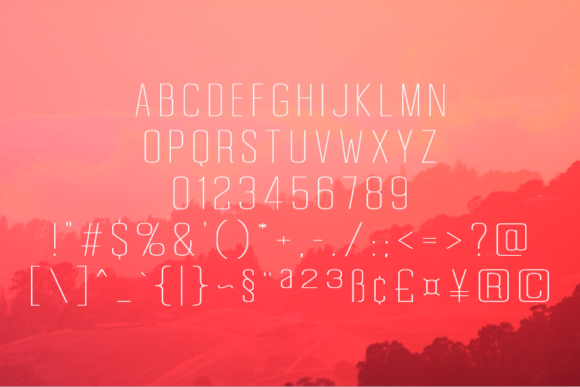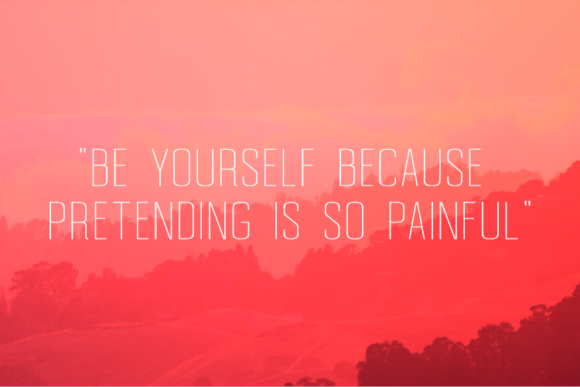
Discover the Elegance of Beatrieza Font: A Delicate Sans Serif for Every Design Need
In the vast and ever-evolving world of typography, finding the perfect font that matches your design vision can be a daunting task. However, if you’re looking for a typeface that exudes elegance, simplicity, and versatility, look no further than the Beatrieza Font. This delicate and thin lettered sans serif font has been making waves in the design community for its neat style and adaptability across a wide range of projects. Whether you’re a seasoned designer or a crafting enthusiast, Beatrieza is poised to become your go-to font for all your design needs.
The Characteristics of Beatrieza Font
Beatrieza Font is characterized by its remarkably delicate and thin lettering, which gives it a unique and sophisticated appeal. As a sans serif font, it boasts clean lines and a minimalist aesthetic that can effortlessly elevate any design. The font’s neat style is one of its standout features, making it incredibly versatile for use in various design contexts, from elegant branding and packaging to stylish stationery and digital interfaces.
One of the key advantages of Beatrieza Font is its incredible versatility. Its subtle elegance means it can seamlessly integrate into a large set of designs, adapting effortlessly to different themes and styles. Whether you’re working on:
• Branding and Logos: The font’s refined look makes it perfect for creating sophisticated brand identities that convey luxury, elegance, and professionalism.
• Digital and Print Media: Beatrieza’s clarity and readability make it an excellent choice for use in magazines, blogs, posters, and any other printed or digital materials where typography plays a crucial role.
• Crafting and DIY Projects: For crafters and DIY enthusiasts, Beatrieza can add a touch of elegance to handmade cards, invitations, and other craft projects.
• Web Design: Its clean and simple design ensures that it works well on digital screens, making it suitable for website headers, menus, and other UI elements.
Why Beatrieza Should Be Your Go-To Font
Beatrieza Font’s potential to become your favorite go-to font lies in its ability to complement a wide array of design styles without overpowering them. Here are a few reasons why designers and crafters are falling in love with Beatrieza:
• Ease of Use: Its simple and uncomplicated design makes it easy to pair with other fonts, allowing for endless creative possibilities.
• Readability: Despite its delicate nature, Beatrieza maintains high readability, making it suitable for both headings and body text.
• Timeless Appeal: The font’s classic look ensures that your designs won’t become outdated, saving you the hassle of frequent redesigns.
How to Make the Most of Beatrieza Font
To truly leverage the potential of Beatrieza Font, consider experimenting with different sizes, colors, and textures. Here are a few tips:
• Play with Sizes: Use larger sizes for headings to make a bold statement and smaller sizes for body text to maintain readability.
• Experiment with Colors: While Beatrieza looks stunning in classic black and white, don’t be afraid to experiment with different colors to match your brand’s palette or project theme.
• Add Textures: For a more unique look, consider adding subtle textures or gradients that complement the font without overpowering it.
In conclusion, Beatrieza Font is a delicate, thin lettered sans serif font that offers a blend of elegance, simplicity, and versatility. Its neat style and adaptability make it an excellent choice for a wide range of design projects, from professional branding and digital media to crafting and DIY endeavors. With its timeless appeal and ease of use, Beatrieza has the potential to become your go-to font for all your design needs. So, why wait? Explore the possibilities of Beatrieza Font today and discover how it can elevate your designs to new heights of sophistication and style.